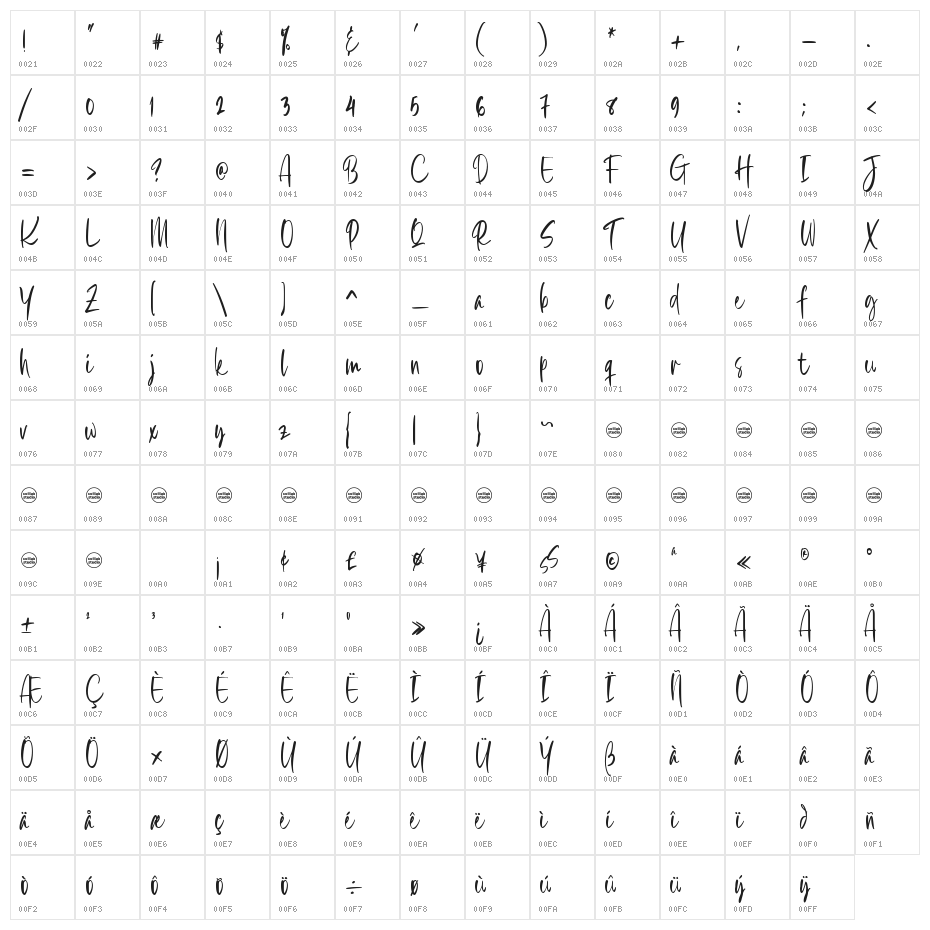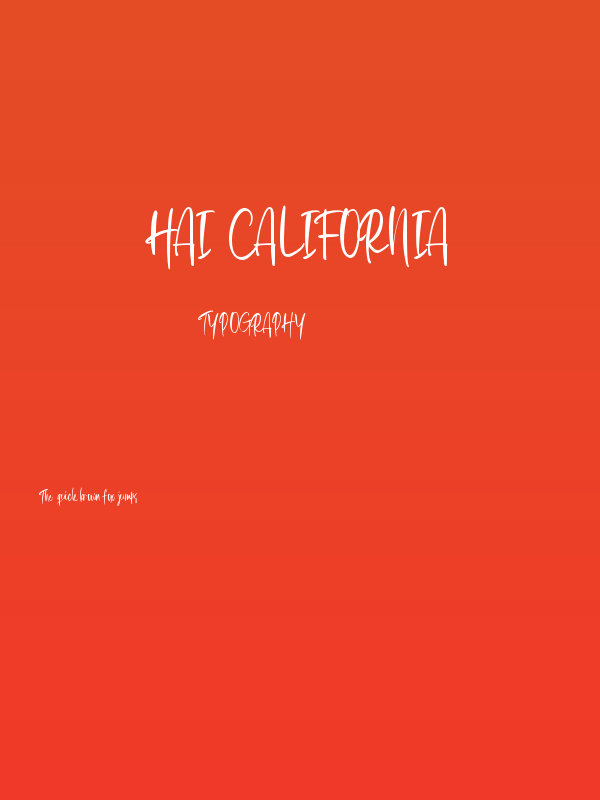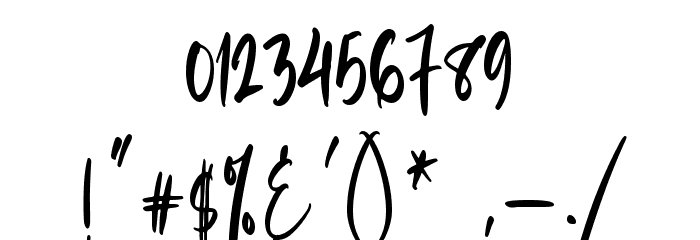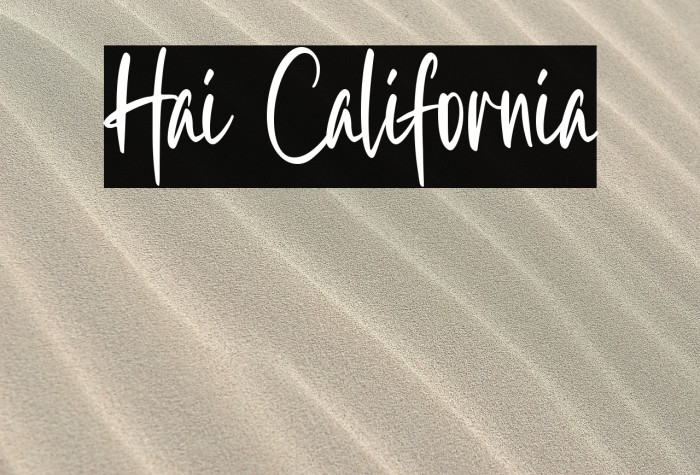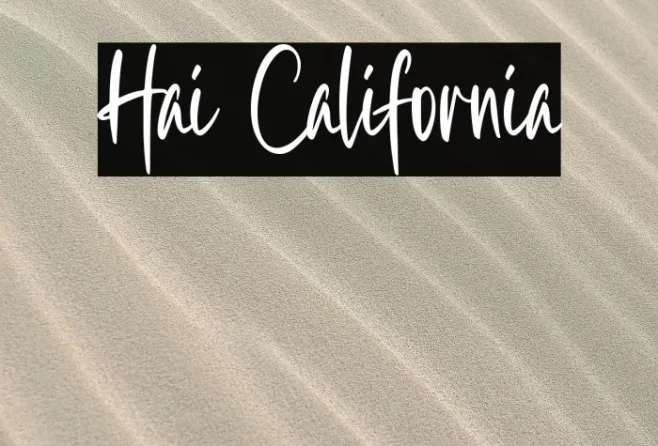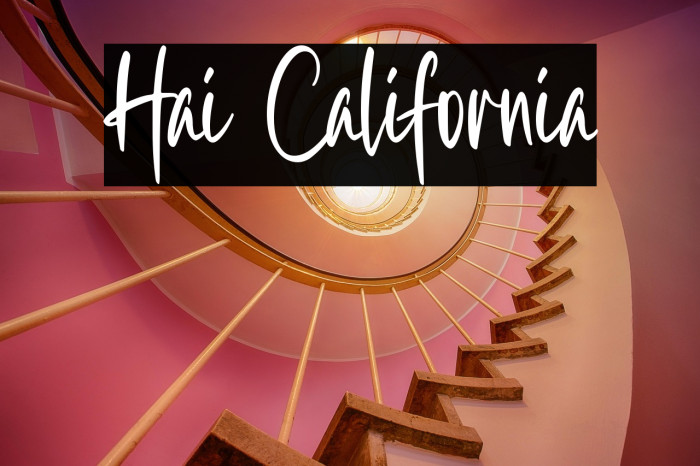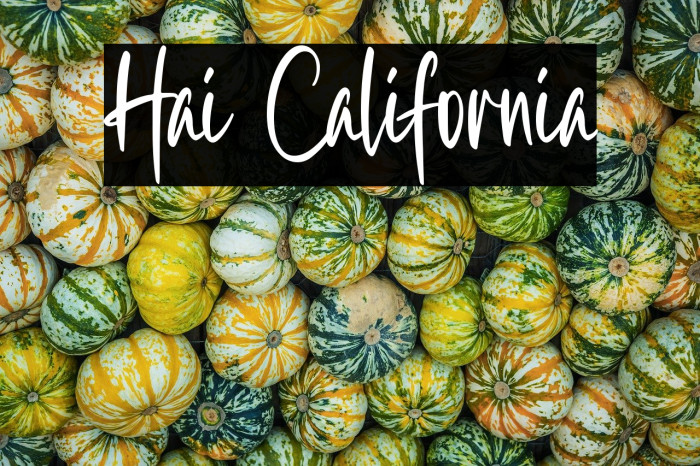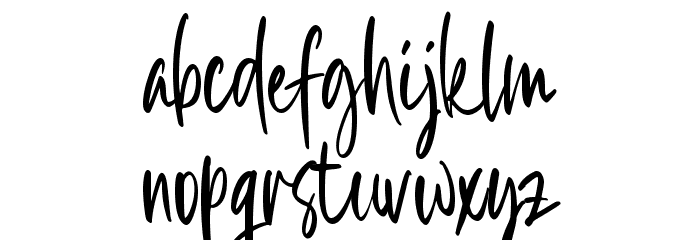
Hai California Font
Hai California Description
This font exudes a casual, handwritten style that is both playful and expressive. The letters are characterized by their fluid, cursive strokes, giving them a dynamic and lively appearance. The uppercase letters are tall and slightly narrow, with a consistent stroke width that maintains readability. The lowercase letters are more varied in height, adding to the informal and personal touch of the font. Numbers and special characters follow the same handwritten aesthetic, ensuring a cohesive look across all text elements. This font's overall style is modern and artistic, making it suitable for creative projects.